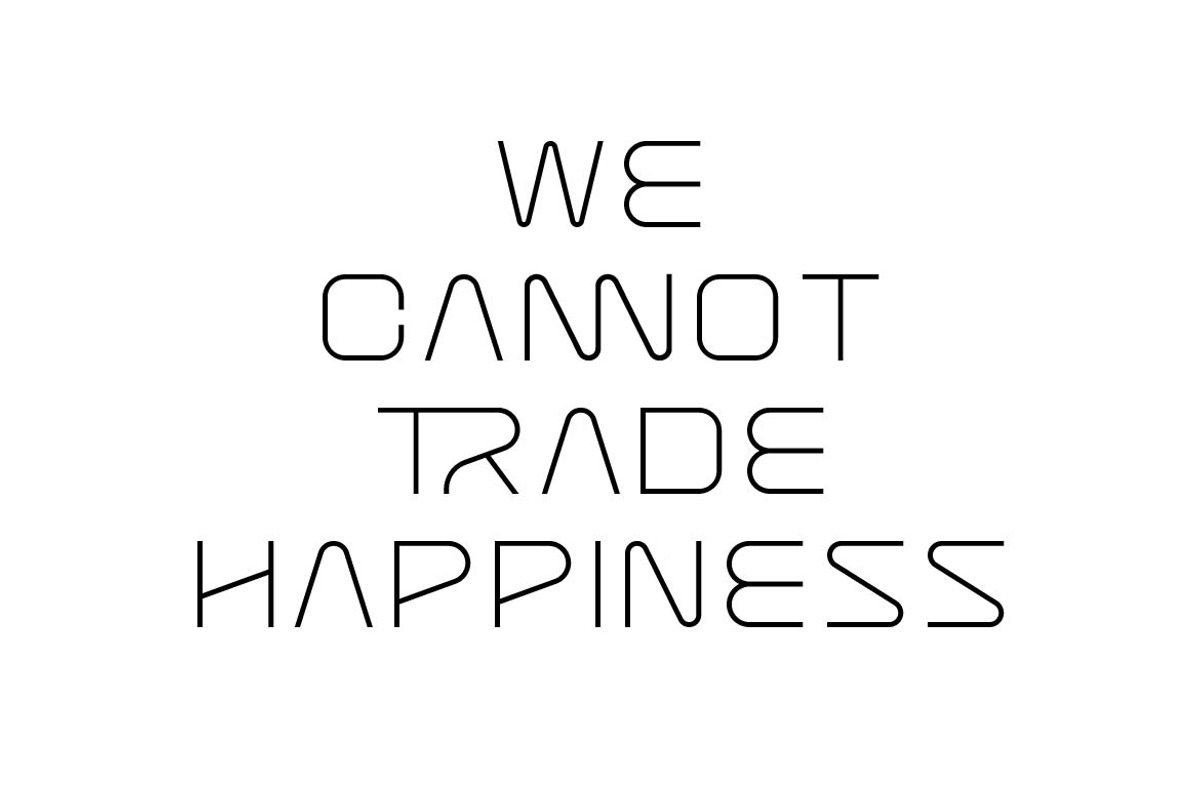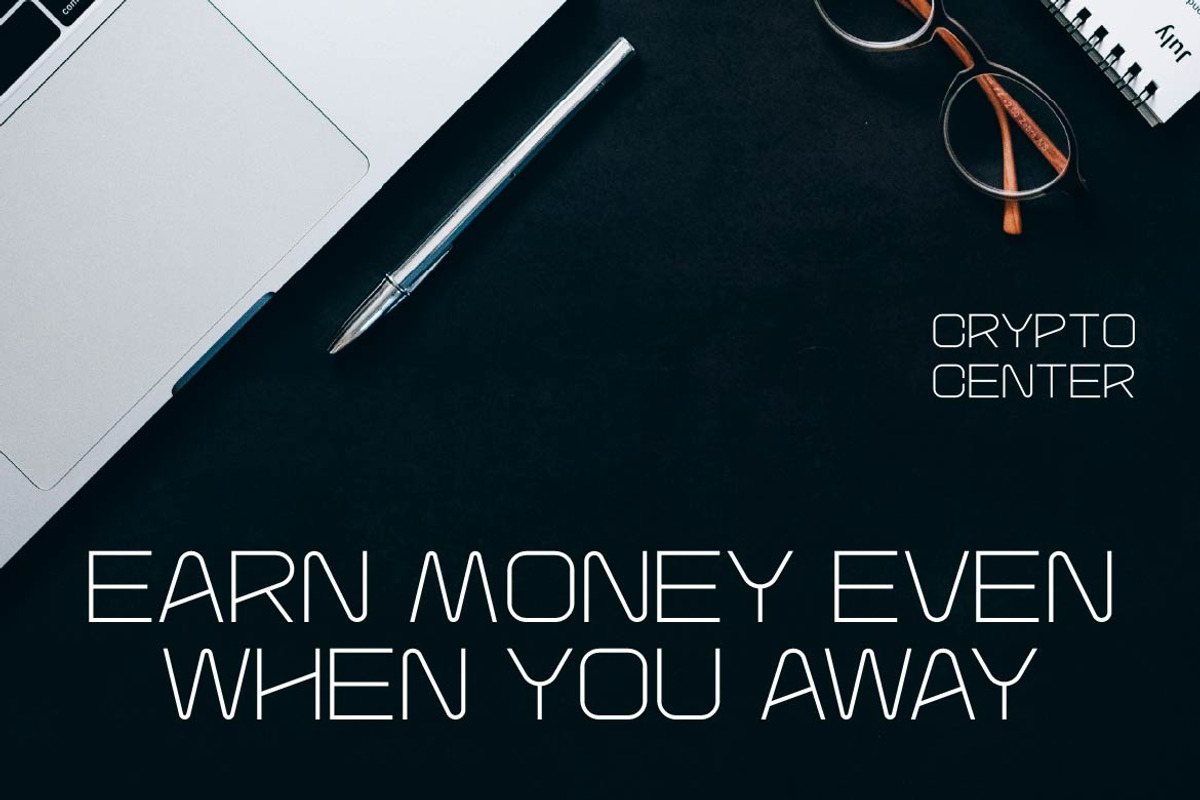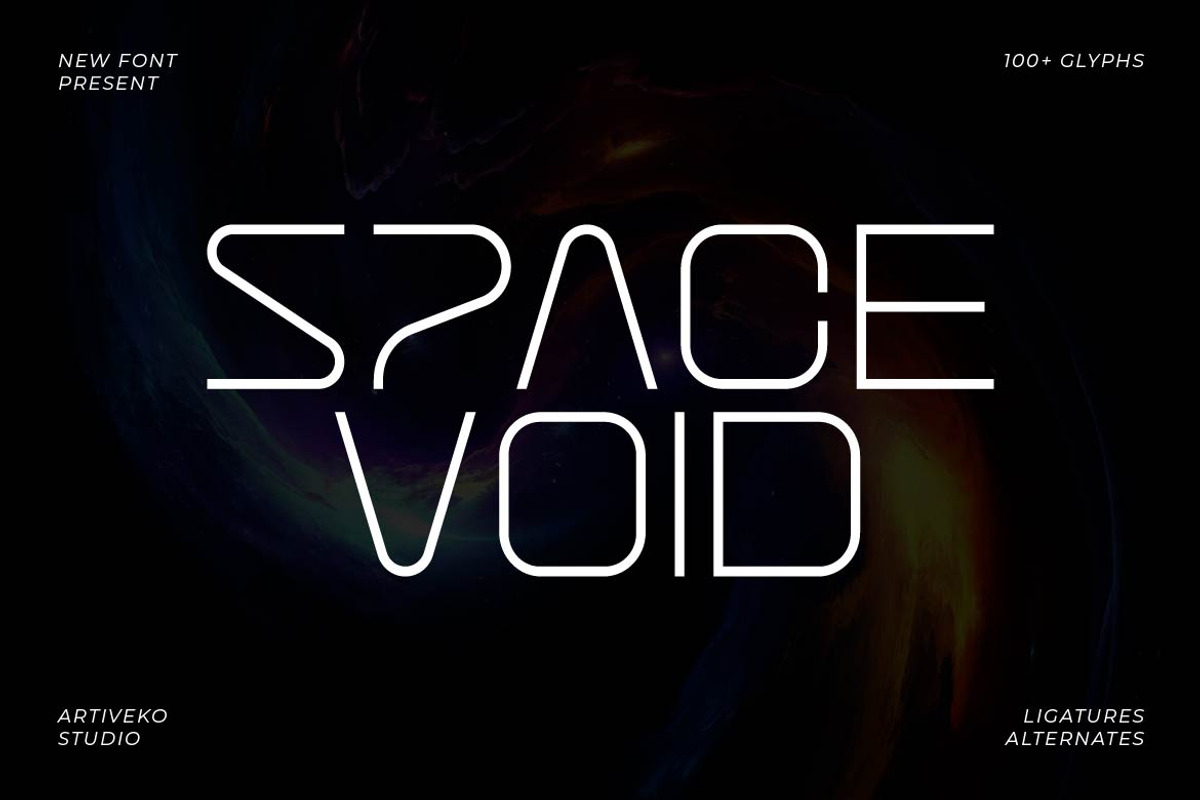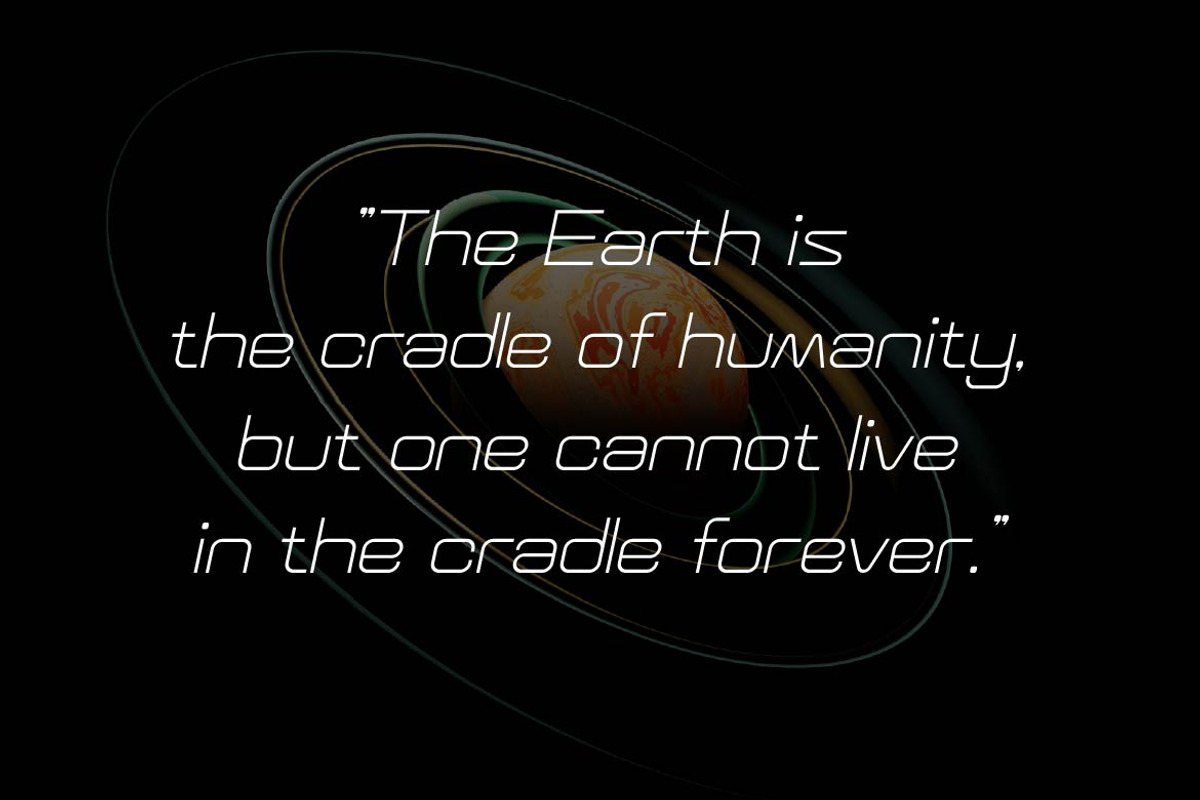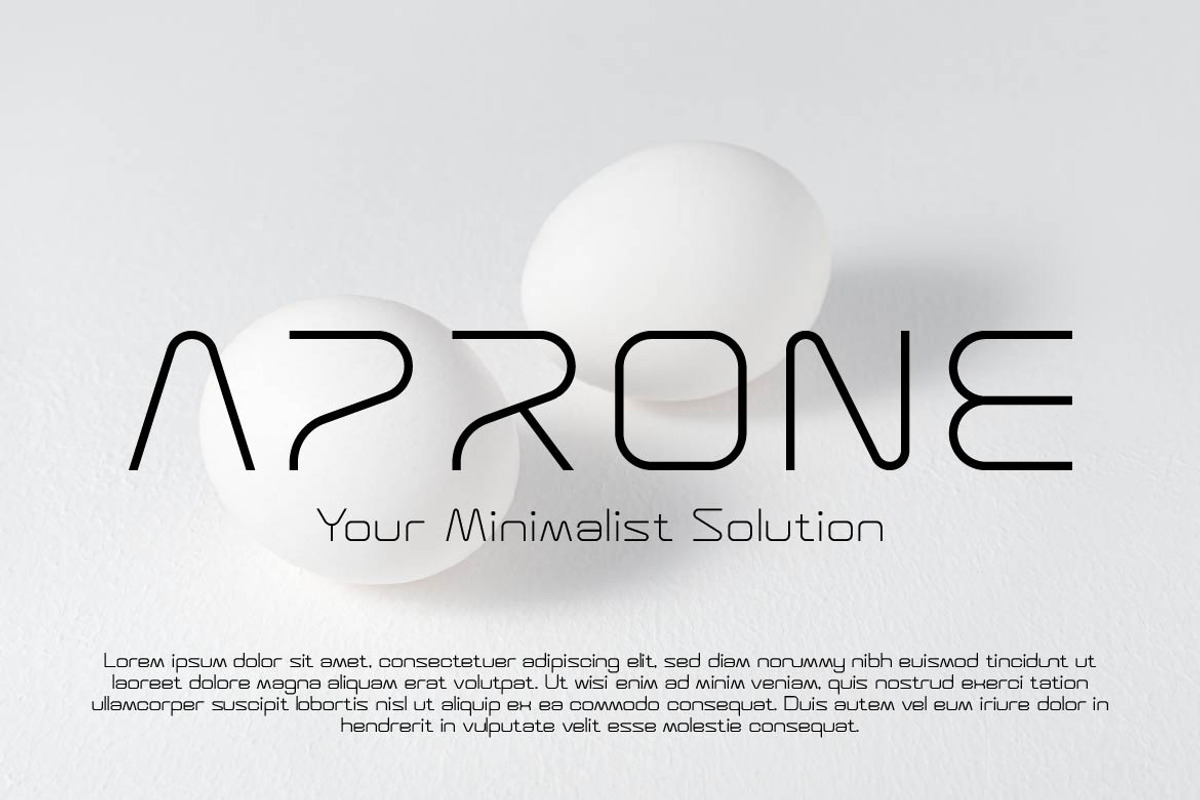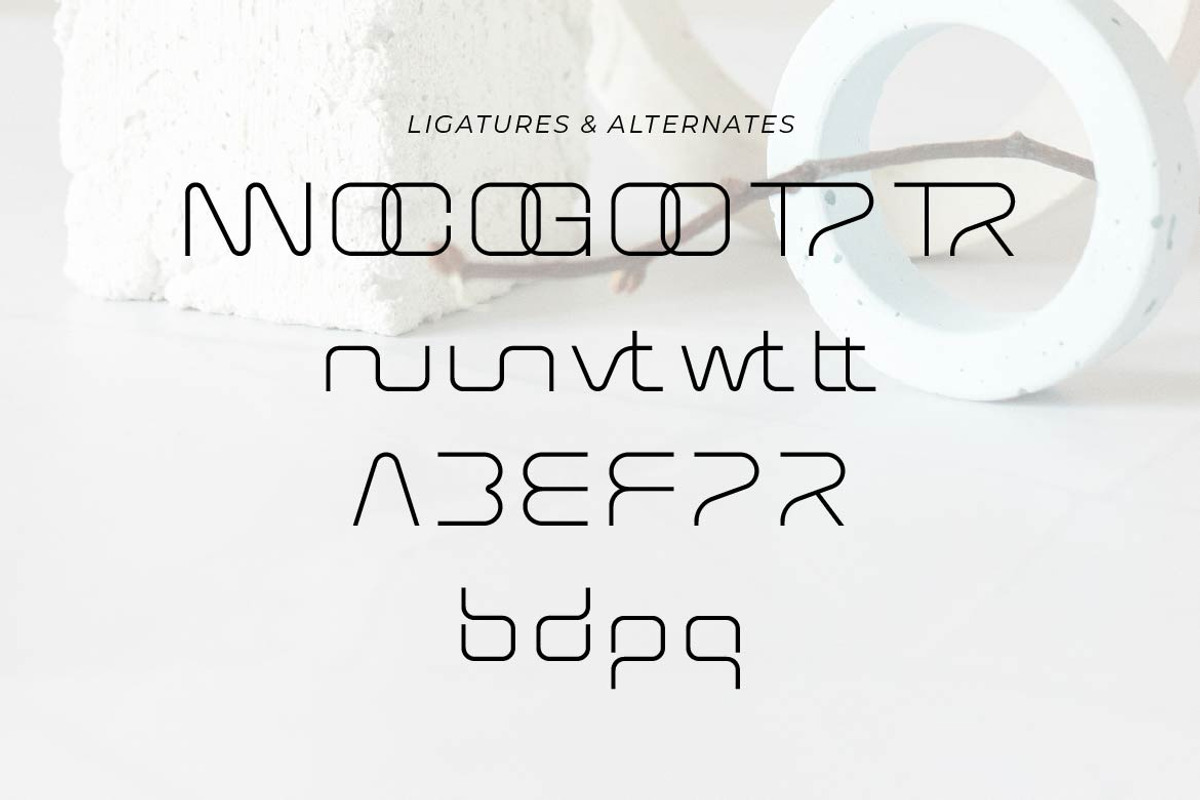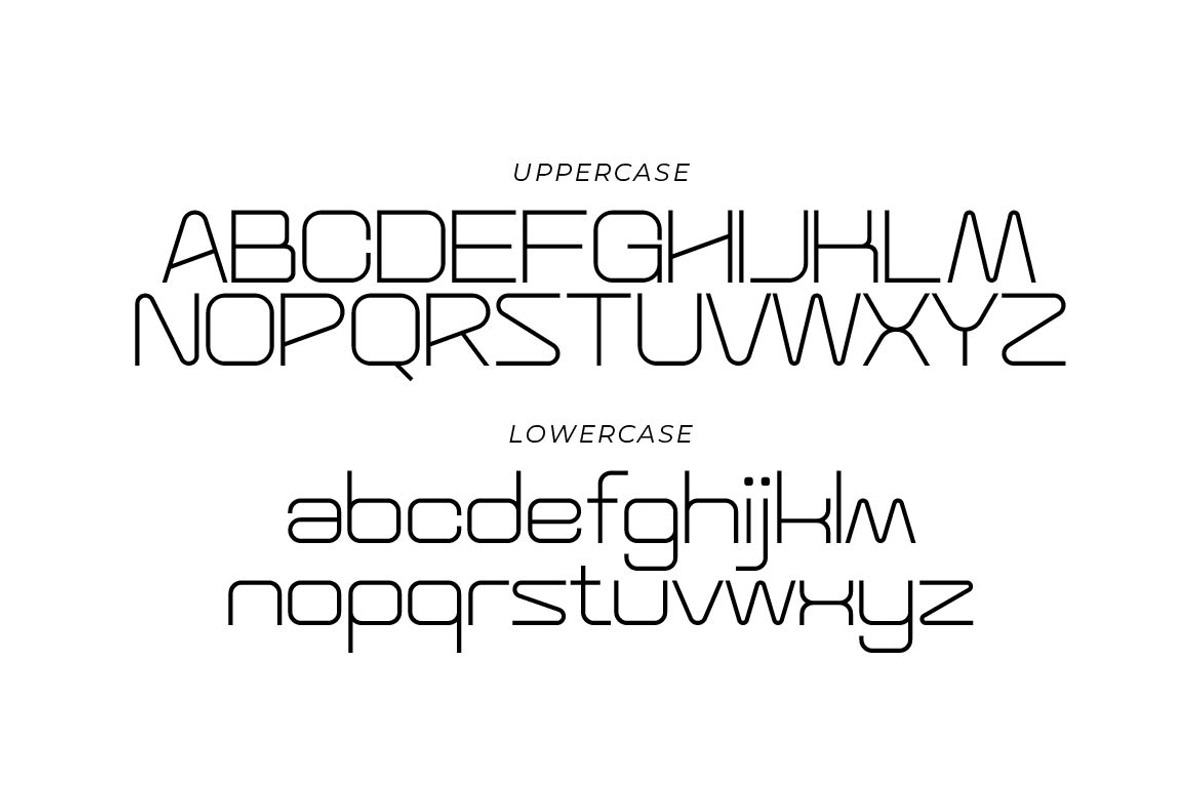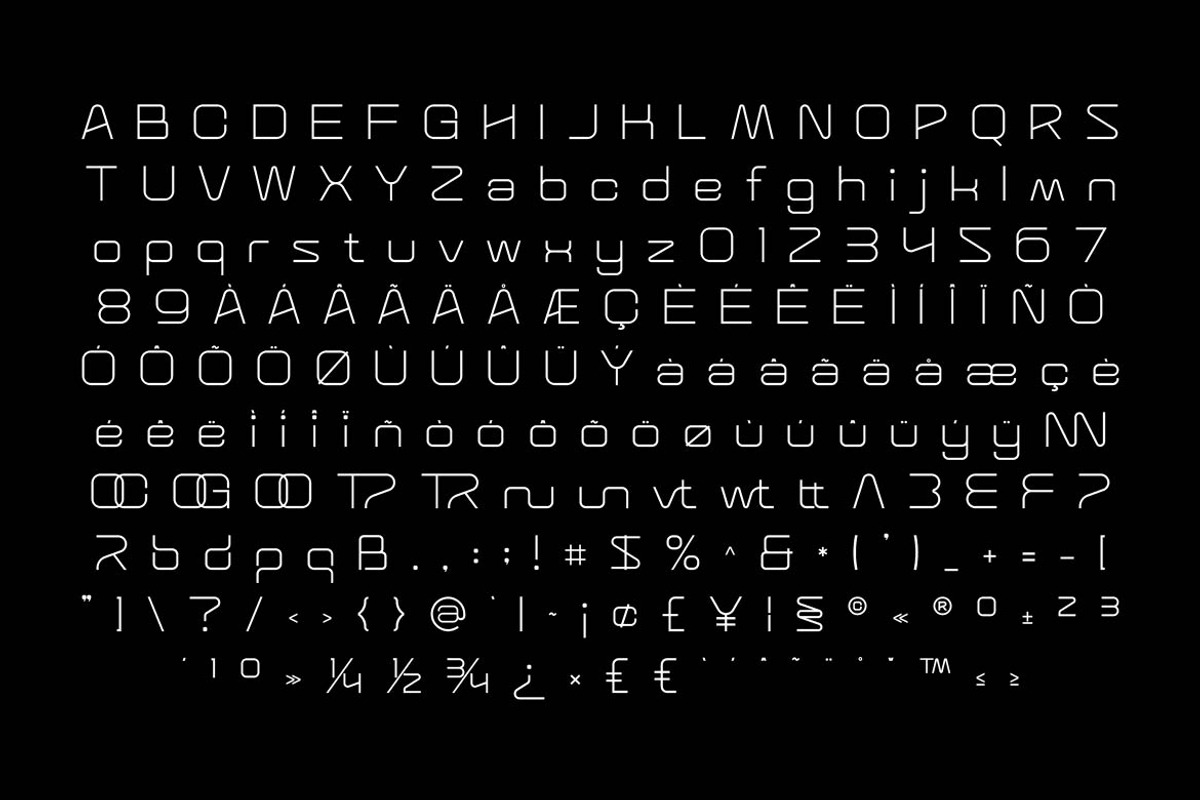
Space Void – Minimal Technology Font
Space Void is a minimalist modern technology sans serif typeface inspired by futuristic interfaces, cosmic exploration, and advanced digital systems. With sleek geometry, precise proportions, and a clean space-age aesthetic, Space Void delivers a sharp and innovative visual identity for forward-thinking design.